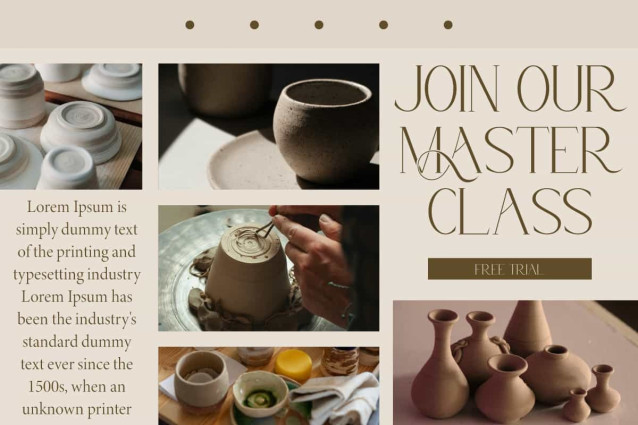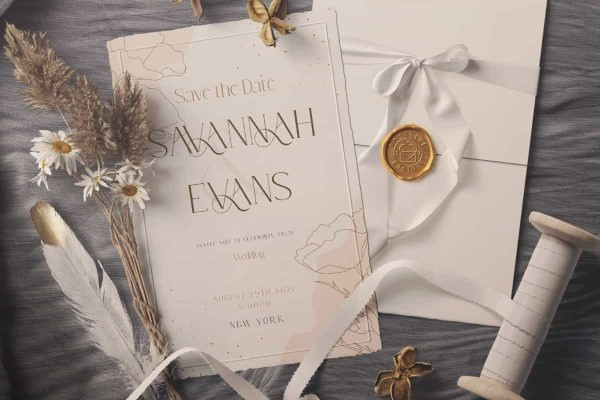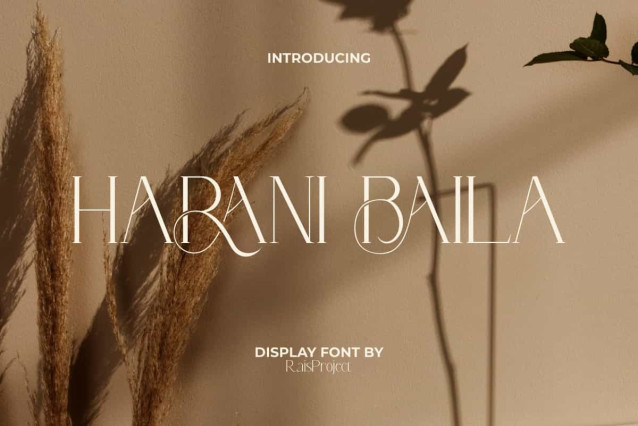
Harani Baila Font
Harani Baila Font is a flawless and modern serif display font, by RaisProject. This font has thin lines so it leaves a luxurious impression that is timeless. It will be good for any designs, such as invitation, custom design, brand image, cover, signage, label, poster, product packaging, quotes, stationery, web, and more!
Harani Baila Font includes a full set of Uppercase and Lowercase Letters, Numerals, Punctuation, Symbol, and Ligature characters. This beautiful font will be suitable for various industries, such as fashion, accessories and jewelry, advertisement, event or wedding organizer, florist, homeware, perfume, photography, printing, publishing, real estate, etc.